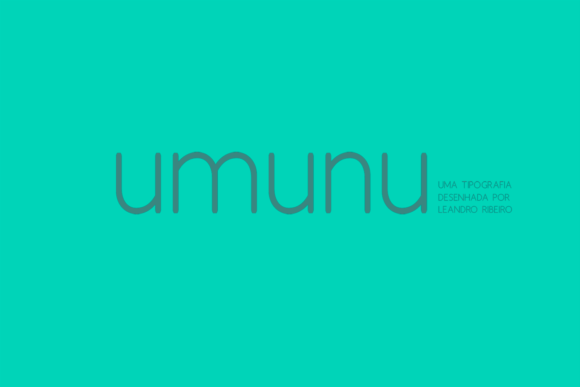
Behold, the Umunu Font - the eminent sans serif font family tailor-made for the dynamic world of web advertising, a brainchild of the esteemed designer, lerima. Umunu is not just a font; it's an artistic gateway to amplifying your digital presence.
Unleash the captivating charisma of Umunu's meticulously crafted characters. Each letterform dances elegantly, exuding confidence and sophistication, ready to make a bold statement in your web designs. The clean lines and subtle curves of Umunu create a visual symphony that effortlessly captivates the eyes of your audience.
Harness the versatility of Umunu to craft captivating headlines that command attention, compelling subheadings that ignite curiosity, and persuasive body text that entices readers to delve deeper into your message. Umunu's adaptability shines through in its ability to seamlessly blend with diverse design aesthetics, allowing you to create cohesive and visually stunning web experiences.
Experience the unparalleled readability of Umunu, a font meticulously designed for the digital realm. Its crisp and legible letterforms ensure effortless comprehension, even on the most pixel-dense screens. Umunu respects the reader's time and attention, delivering your message with clarity and precision.
Umunu is more than just a font; it's an investment in your brand's digital success. Embrace Umunu and witness the transformation of your web presence into a captivating symphony of visual appeal and persuasive power.